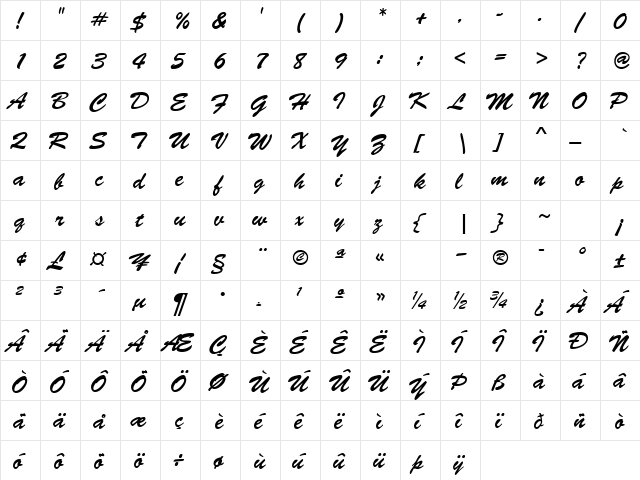
GE Brush Strokes Regular
Design Context for GE Brush Strokes Typeface
GE Brush Strokes brings a calligraphic fluidity to the page — its connecting strokes and expressive curves give it an unmistakably human quality.
Font Pairing: Combine GE Brush Strokes with a simple geometric sans for maximum contrast — the tension between flowing curves and clean structure is a classic typographic pairing.
Pro Tip: Use GE Brush Strokes for short runs of text — names, titles, or taglines. Extended body copy in script faces tires the eye quickly.